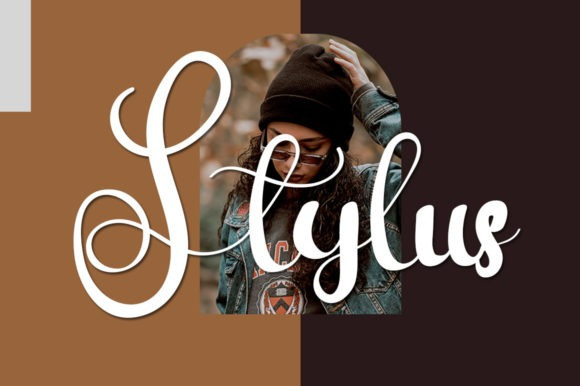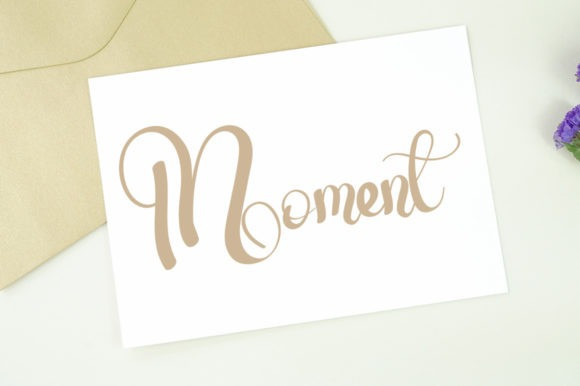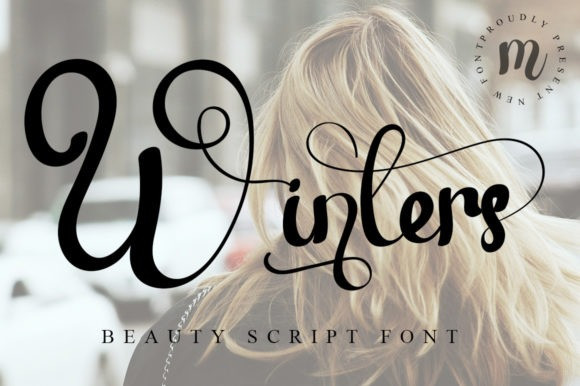
Winters Font
Winters Script Font is a lovely and timeless handwritten font. Every letter has a unique and beautiful touch, which will make your design come alive. Its stylish alternates and ligatures make this font the perfect match for any project.